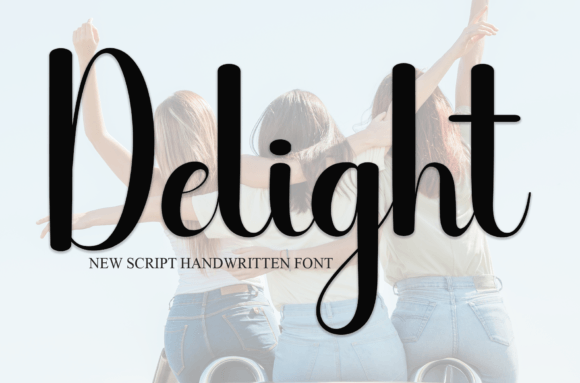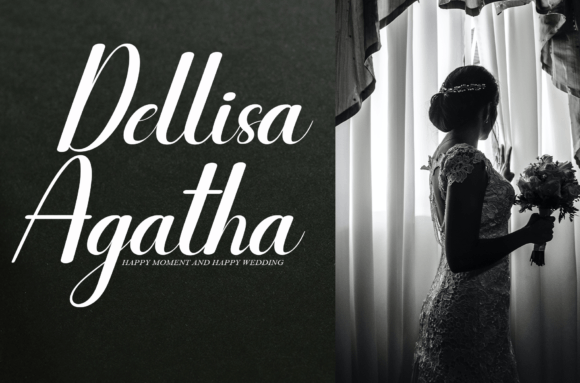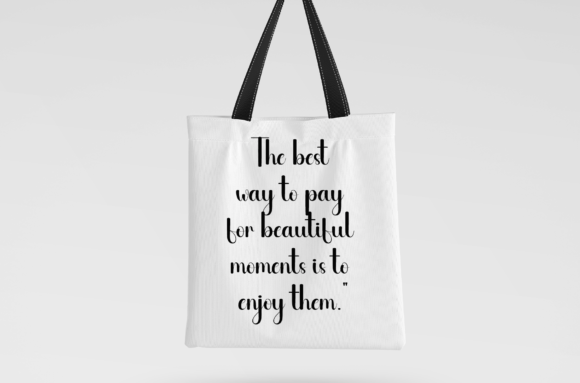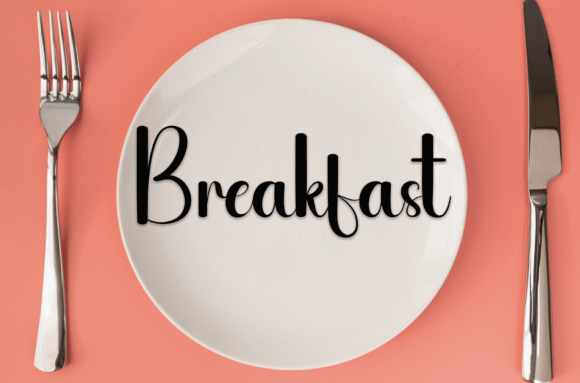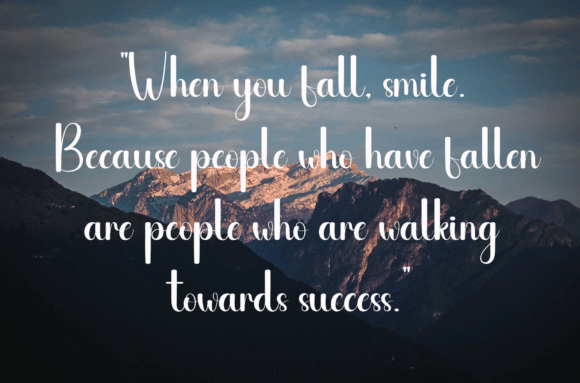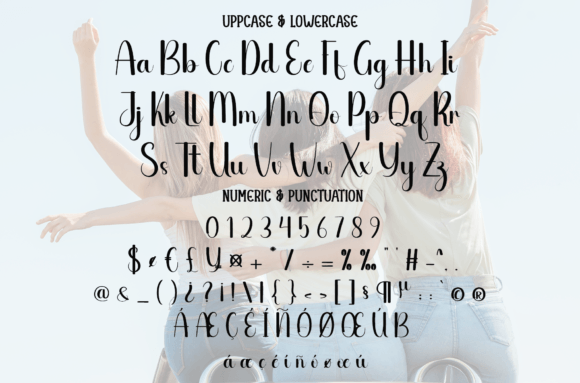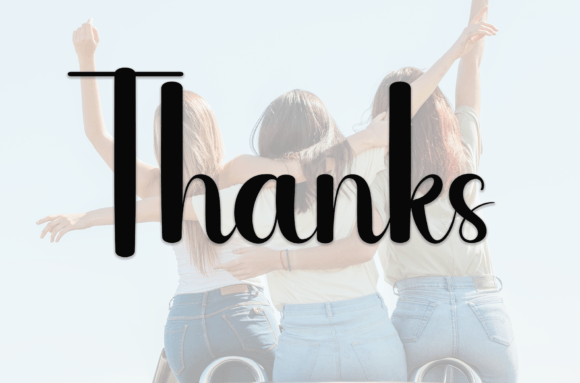
The Perfect Font for a Joyful Touch
Remember the moment when you were brainstorming ideas for a friend’s wedding invitation? You wanted something more than just a plain card, but a personalized and thoughtful message that would make the recipient feel special. That’s when the magic of typography comes in – a well-chosen font can make all the difference. In this case, the perfect font for the job is Delight Font.
This sweet and friendly handwritten font is designed to add a fun touch to any design. Whether you’re creating wedding invitations, cards, or any other project that needs a playful vibe, Delight Font is the perfect choice. Its fresh and neat appearance makes it a valuable asset for designers looking to add a personal touch to their work.
With Delight Font, you can bring a smile to your recipient’s face and make your design stand out from the crowd. Its versatility and charm make it a must-have for any designer looking to add a joyful touch to their work.
- Unique Characteristics: Delight Font features a distinctive, elegant design with subtle flair and rounded edges, giving it a friendly and approachable feel.
Delight Font Review
Overall, I think the Delight Font is a beautiful and elegant addition to any design project. ✨ The font’s soft curves and subtle flair give it a warm and inviting feel that’s perfect for creating a sense of joy and wonder.
- Delightful readability: The font’s clear and easy-to-read design makes it perfect for body text and headings.
- Expressive flair: The font’s subtle flair and variations in letterforms give it a unique and expressive feel that’s perfect for creative projects.
- Beautiful pairing options: Delight pairs well with a wide range of fonts, from modern sans-serifs to classic serif fonts.
- Not ideal for bold headlines: While Delight is great for body text and smaller headings, it may not be the best choice for bold, attention-grabbing headlines.
- May not be suitable for very formal projects: The font’s playful and whimsical feel may not be suitable for very formal or corporate projects.
- ⚠️ Limited language support: Delight may not support all languages or character sets, so be sure to check compatibility before using it in a project.
Overall, I think Delight Font is a great choice for designers looking to add a touch of whimsy and elegance to their projects. Just be sure to consider its limitations and use it in a way that suits its strengths.
Getting the Most Out of Delight Font
Delight Font is a versatile font that can be used in a variety of contexts. To get the most out of it, try using it in combination with other fonts or as a standalone font for emphasis.
Delight Font is commonly used in graphic design, digital art, and typography. It’s a great choice for creating eye-catching headlines, titles, and body text.